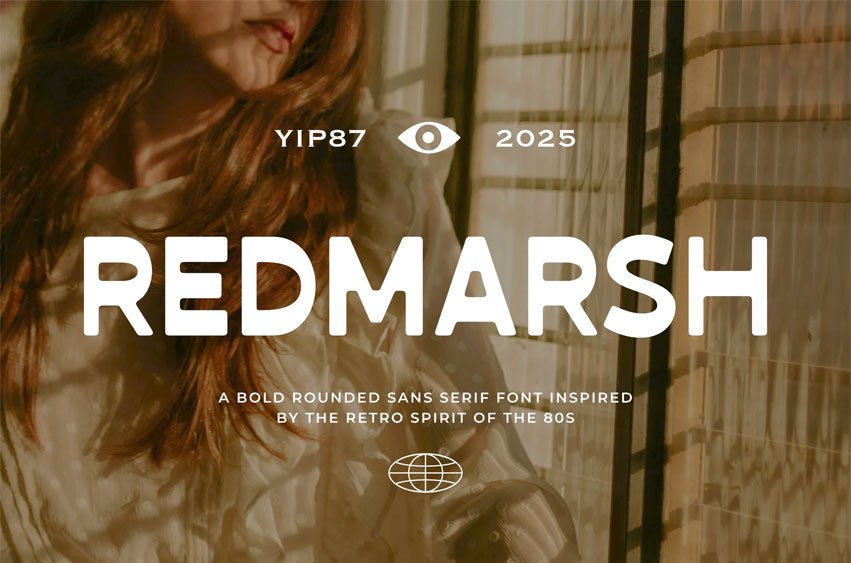
Redmarsh Font is a retro-modern sans serif font with smooth, rounded forms that echo the nostalgic charm of 1980s design. Perfectly blending bold simplicity with throwback character, Redmarsh channels the visual energy of synthwave, vaporwave, vintage tech, arcade titles, and neon-lit posters.
With its soft curves and balanced proportions, this font is ideal for retro-inspired branding, editorial layouts, lifestyle merchandise, and nostalgic digital content. Whether you’re working on a music event flyer, YouTube thumbnail, or label, Redmarsh gives your designs a bold pop of retro flair.